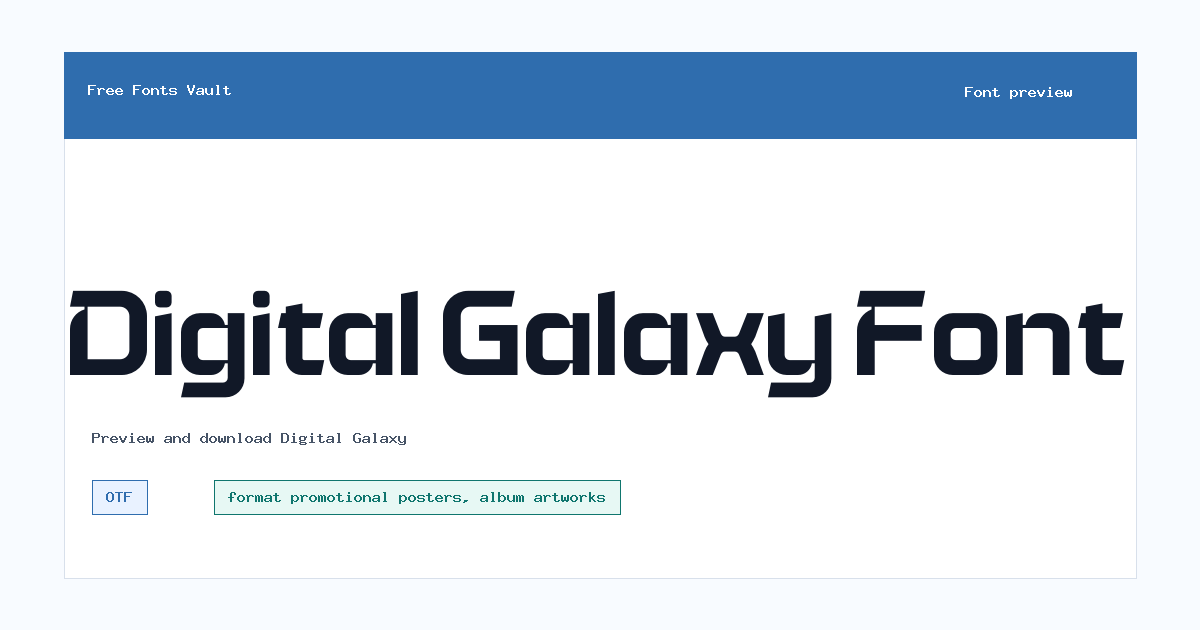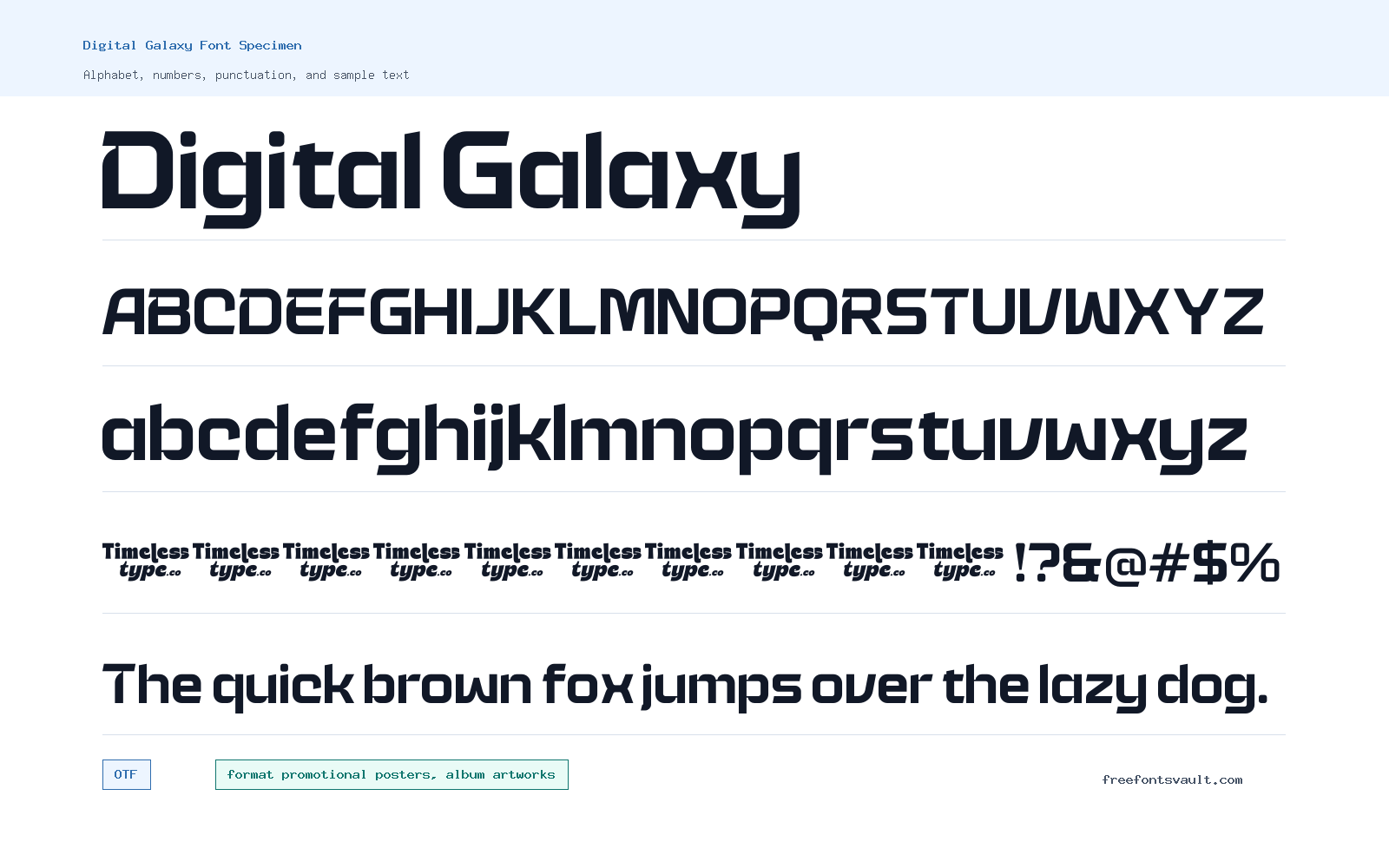
Digital Galaxy
- Designer Heru Utama Putra
- Foundry TimelessType
Digital Galaxy is a futuristic display font with a bold tech look, made for short text that needs a sharp, sci-fi feel. It works best when used large, where its geometric shapes and angled details can stand out clearly.
About Digital Galaxy
Digital Galaxy is credited to Heru Utama Putra and Timelesstype Studio. The family is sold on MyFonts with Regular and Italic styles, while the download on this page contains the Regular OTF file only. Its style fits the techno and futuristic display category rather than everyday body text.
Use Digital Galaxy for headlines, poster titles, music artwork, game graphics, tech-themed social posts, and interface mockups where a strong display face makes sense. Keep the wording short, add extra spacing if the letters feel tight, and test numbers and punctuation in the preview before using it in a finished design.
Digital Galaxy should be used where the font can carry the mood of the design: game titles, cyber-style posters, sci-fi thumbnails, album art, event graphics, or tech product mockups. Because the available file is the Regular OTF only, test it as a single display style instead of assuming the full marketplace family is part of this download.
- Futuristic display sans style with geometric, techno character
- Sci-fi and technology-themed headlines
- Posters, album artwork, gaming graphics, and short branding tests
Digital Galaxy is credited to Heru Utama Putra and published by Timelesstype Studio on MyFonts.
Use it at display sizes, not for paragraphs. Try it with uppercase words, short titles, numbers, and punctuation in the preview box. For longer layouts, pair it with a simple neutral sans serif so Digital Galaxy stays focused on headings and accents. Check diagonals and tight corners at the final size, because futuristic display fonts can lose detail when reduced too far.
Does Digital Galaxy include an Italic style?
The broader family is listed with Regular and Italic styles on MyFonts, but this page only has the Regular style.
What is Digital Galaxy best used for?
It is best for short, high-impact text such as sci-fi titles, tech posters, music covers, gaming graphics, and futuristic interface mockups.
Can I use Digital Galaxy for body text?
It is not a good choice for long reading. Use it for headlines or accents, then pair it with a cleaner text font for paragraphs.